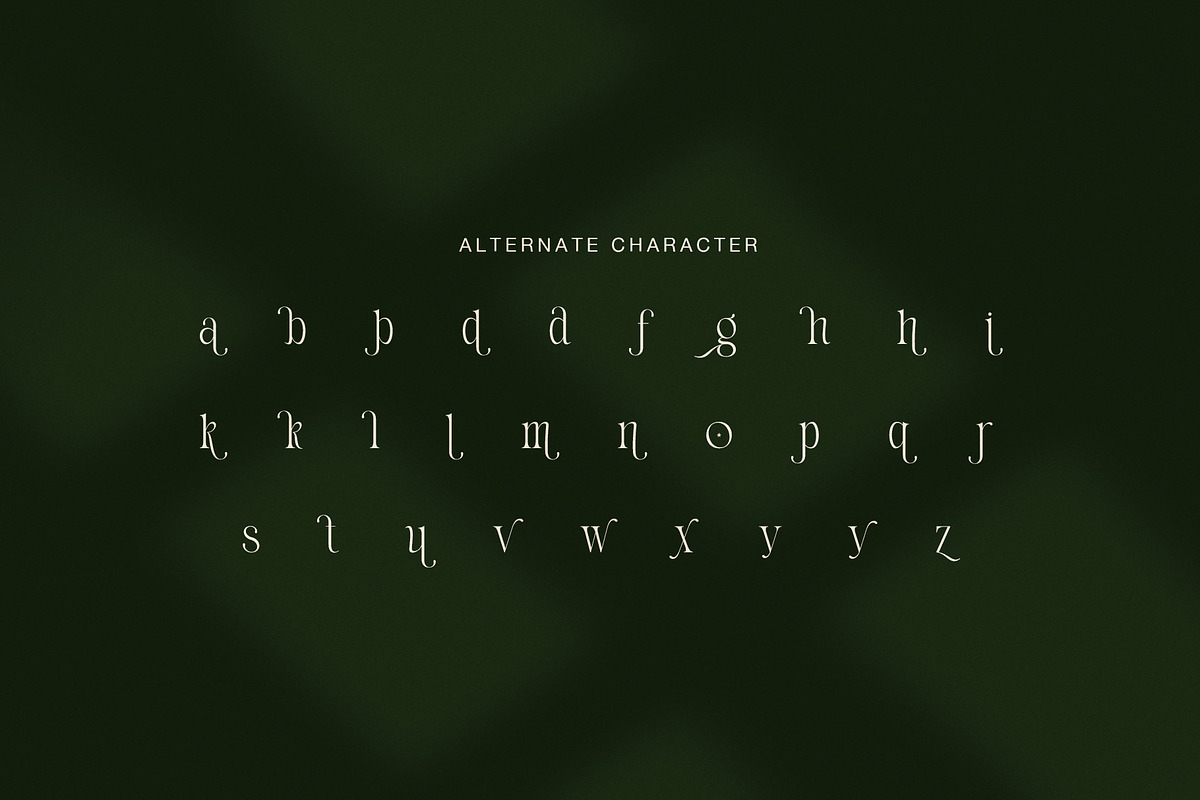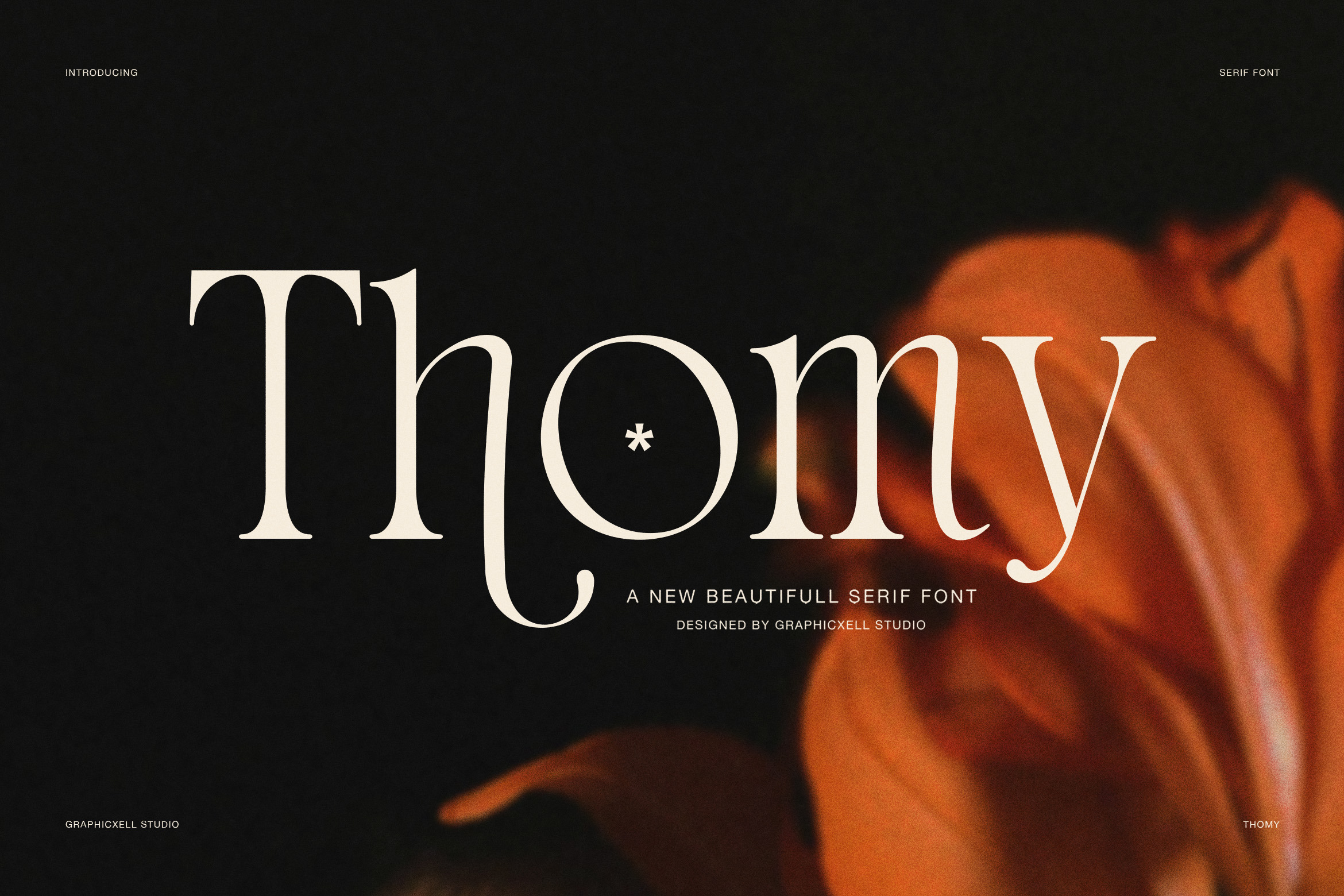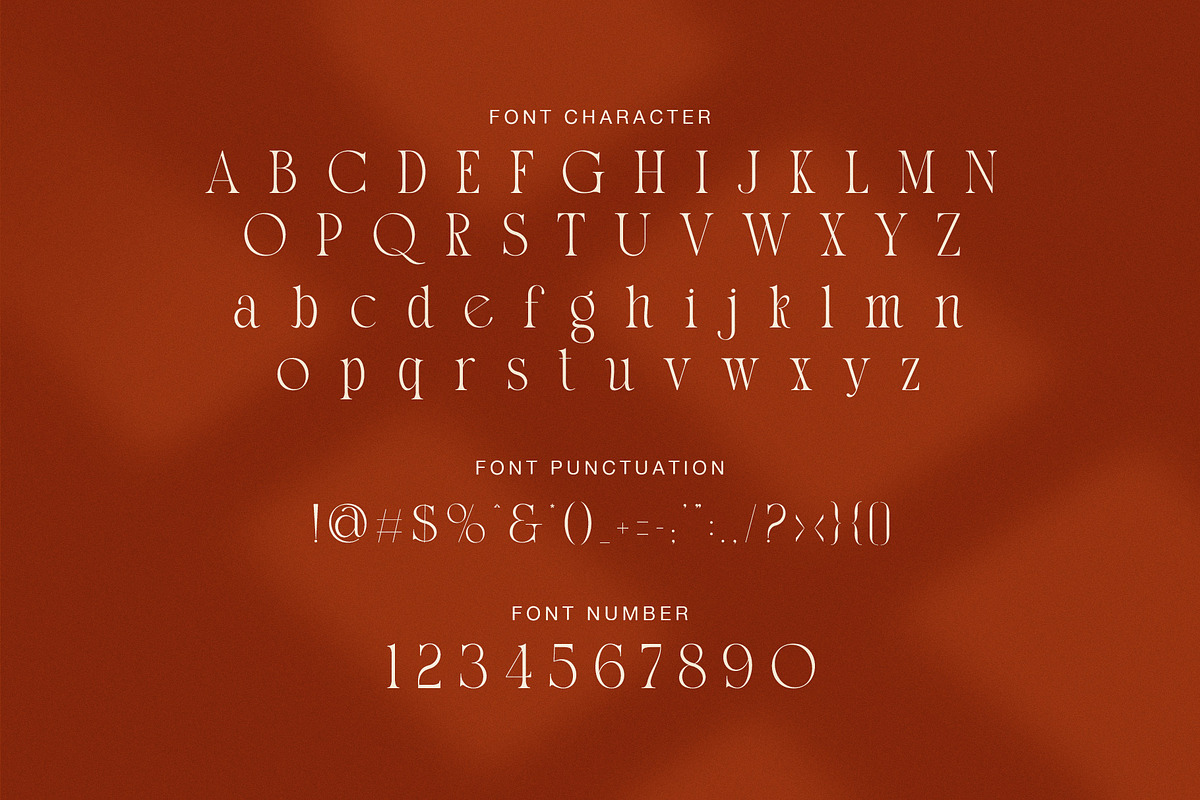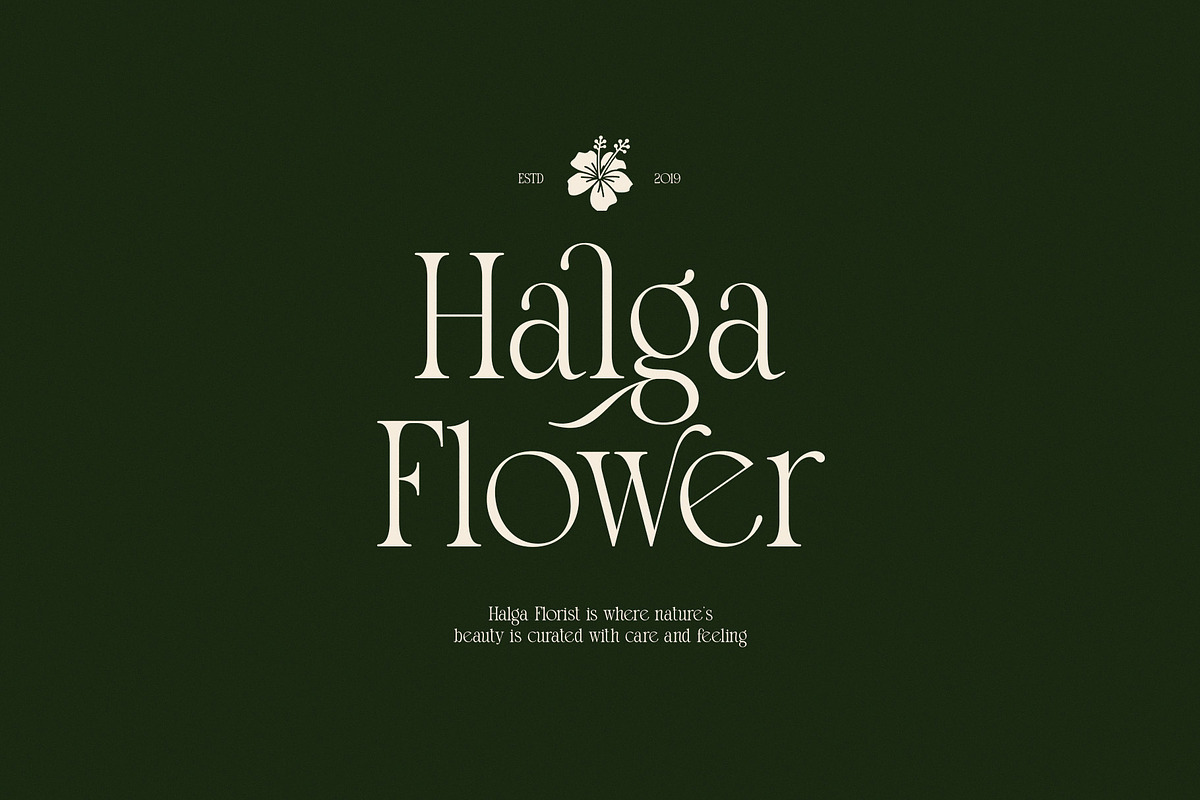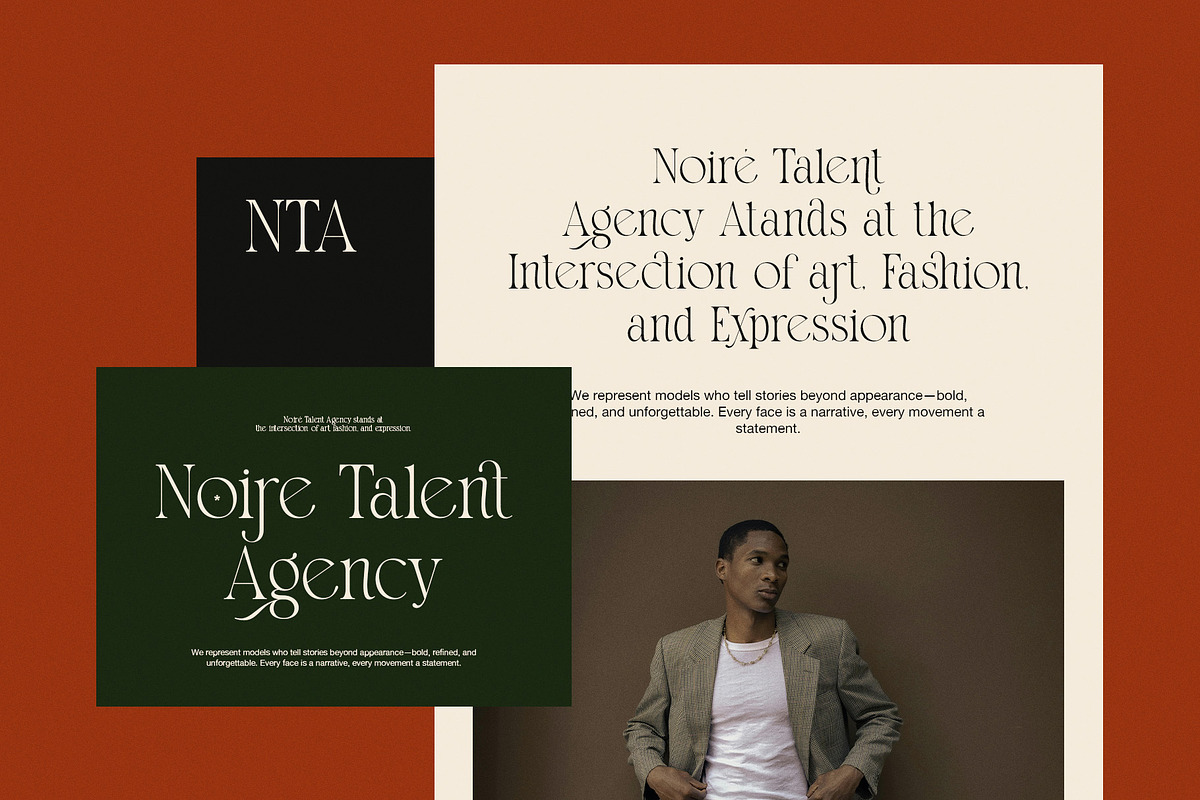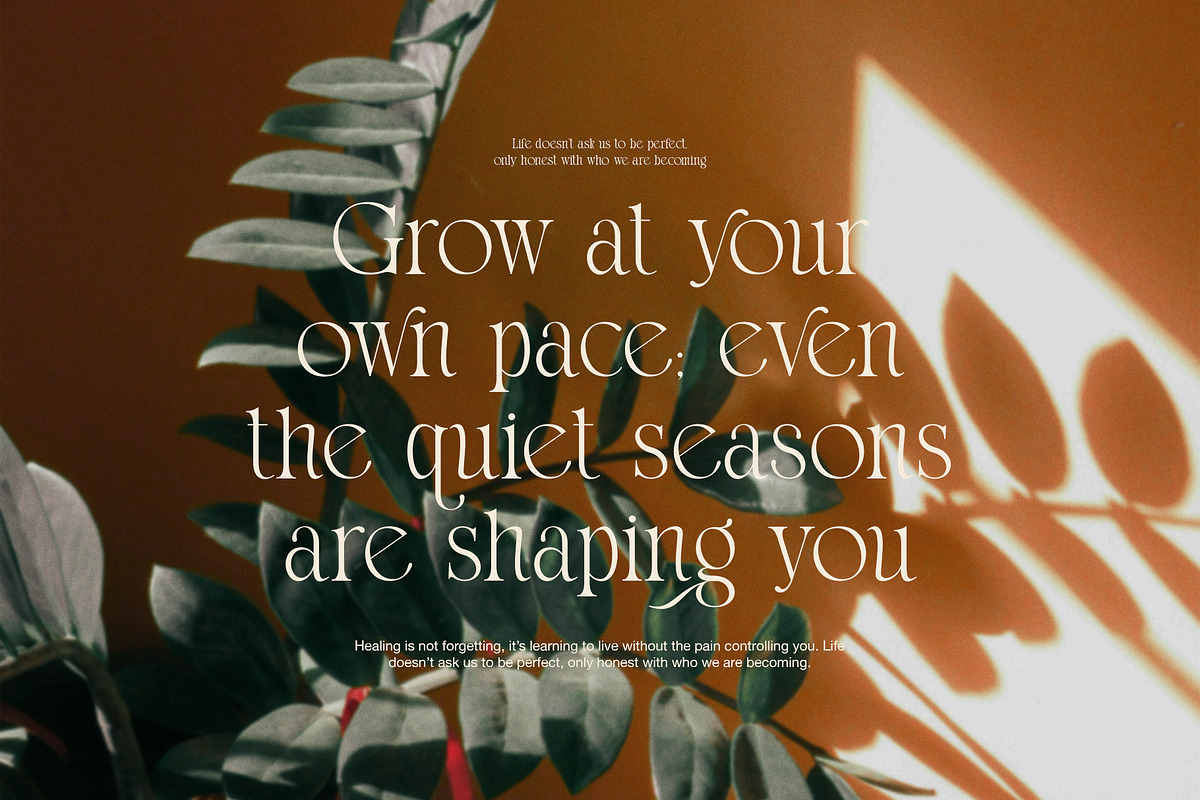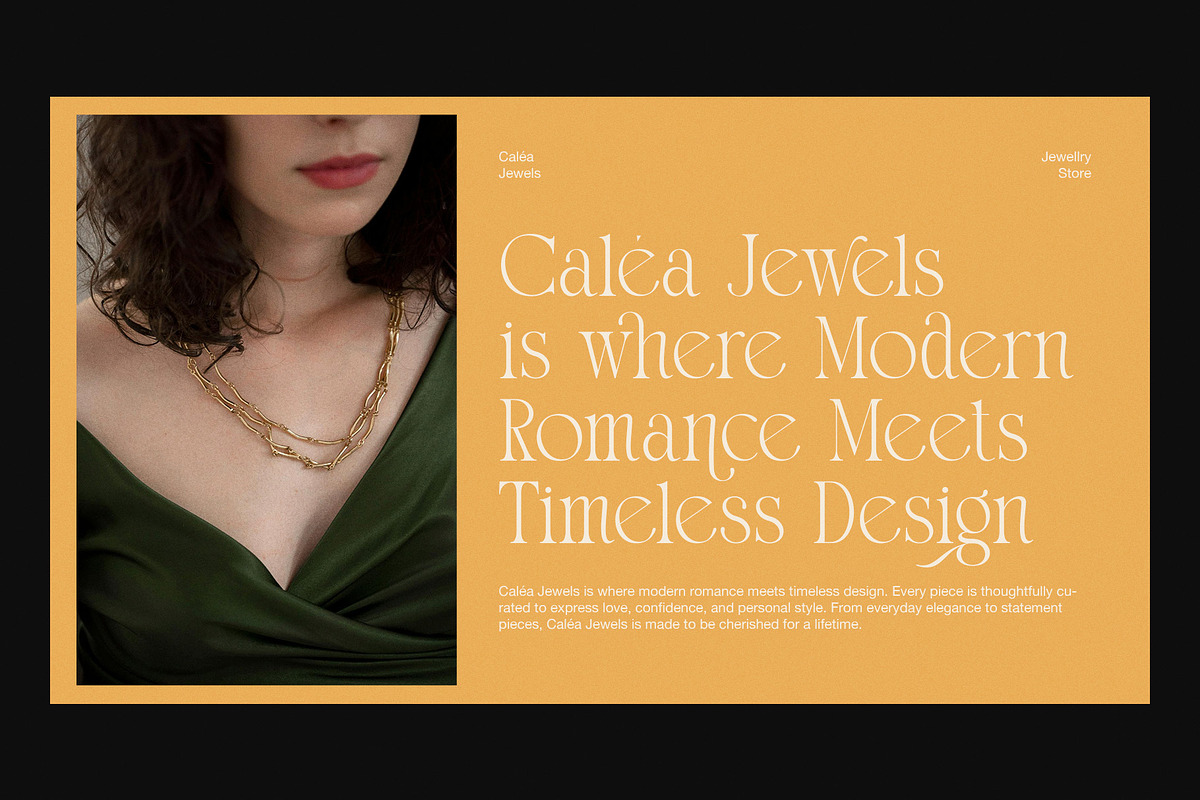
Thomy Elegant Serif Font
Thomy is an elegant serif font created to express beauty, emotion, and refined character. Moreover, it blends classic serif structure with soft curves and graceful details, so every word feels warm and sophisticated. Because of this balance, designers can use Thomy for luxury branding, editorial layouts, and artistic storytelling.
In addition, Thomy offers expressive alternate characters that add flow and personality to lettering. Therefore, logos, headlines, and brand names feel more personal and handcrafted. At the same time, the main letterforms stay clean and readable, even in longer text. As a result, this font works well for both display typography and short supporting copy.
Furthermore, Thomy fits many creative fields. For example, it works beautifully for florists, jewelry brands, fashion editorials, and lifestyle magazines. It also performs well for talent agencies, beauty campaigns, quote designs, and premium packaging. Since the letterforms feel calm and elegant, layouts look refined without appearing heavy.
Why designers choose Thomy
This serif font helps brands communicate elegance with emotion. Also, it supports storytelling through typography, which makes designs feel meaningful and memorable.
Main features and benefits:
Elegant serif letterforms with soft curves
Stylish alternates for expressive typography
Smooth ligatures for natural word flow
High contrast for luxury headlines
Clean structure for easy reading
Strong uppercase for logos and branding
Balanced lowercase for longer text
Works well for print and digital projects
Moreover, Thomy creates an emotional connection through typography. Instead of sharp or rigid shapes, it uses gentle rhythm and flowing details. Because of that, designs feel confident, timeless, and premium.
Finally, if you need a serif font that feels elegant, expressive, and versatile, Thomy offers the perfect solution. It supports creative ideas, improves visual quality, and strengthens brand identity across many platforms.